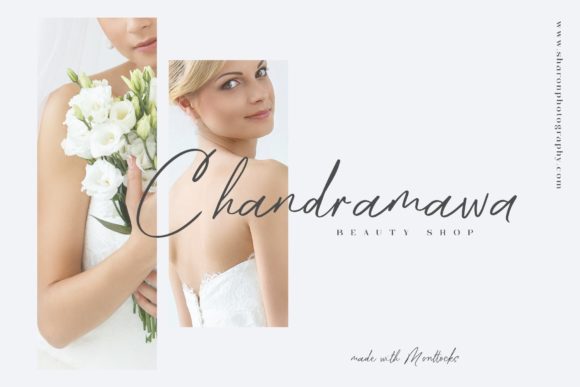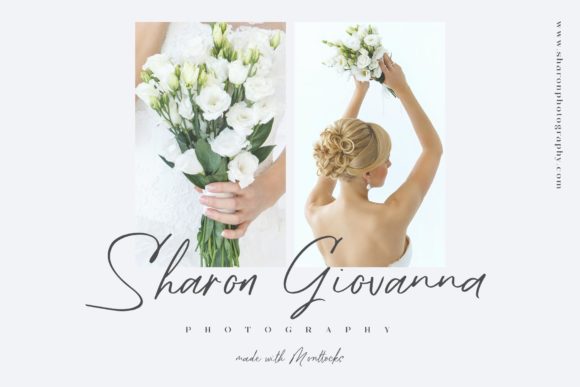
Monttocks Font
db-ku.com - Script & Handwritten -- Monttocks is a stylish and delicate script font. It is PUA encoded which means you can access all of the glyphs and swashes with ease!